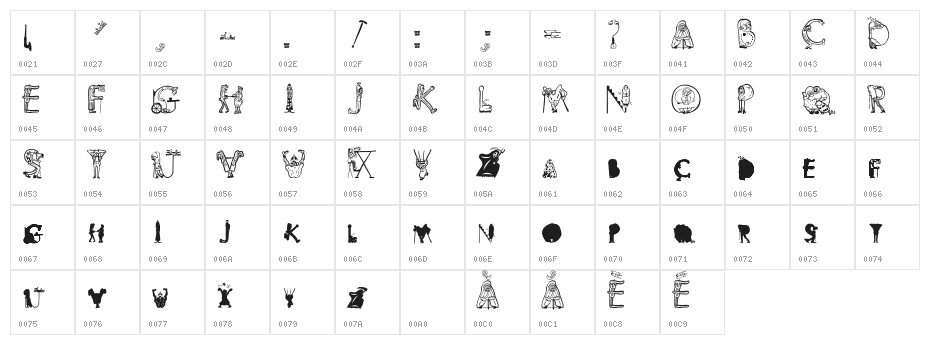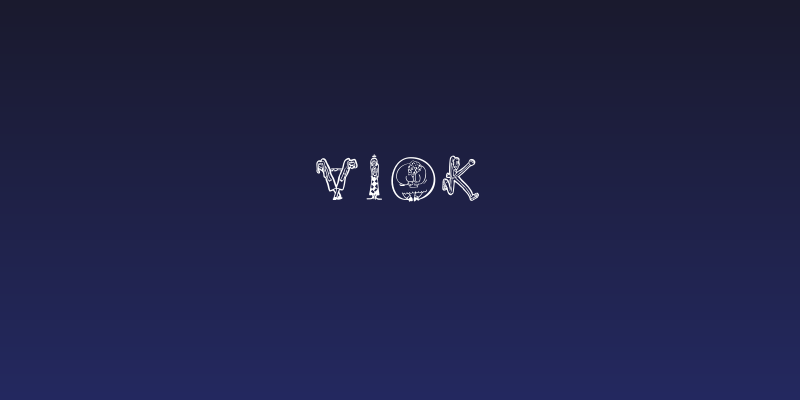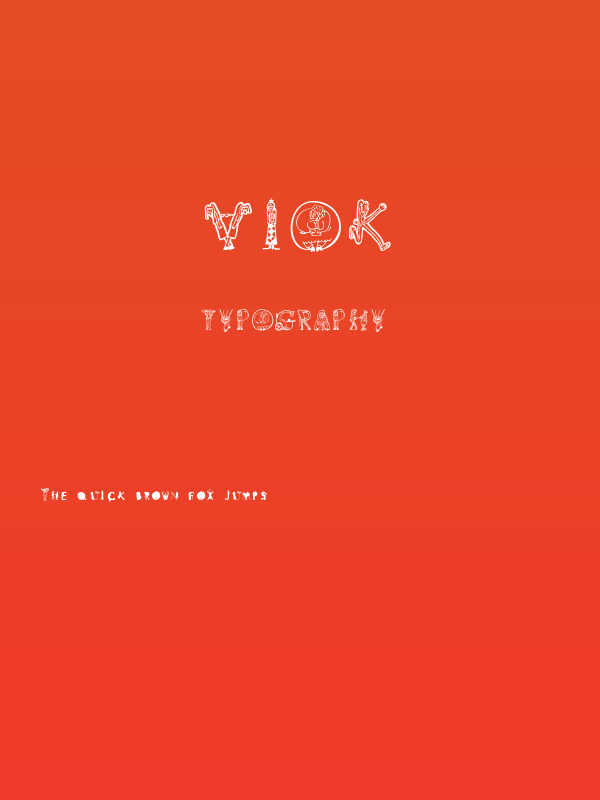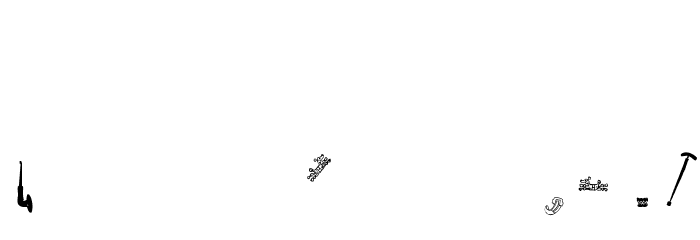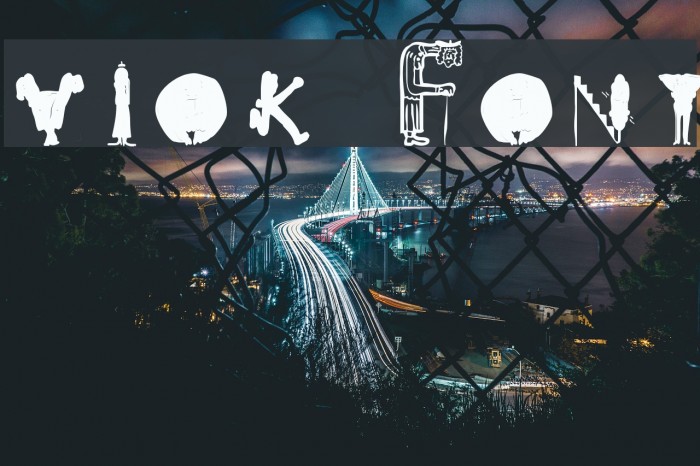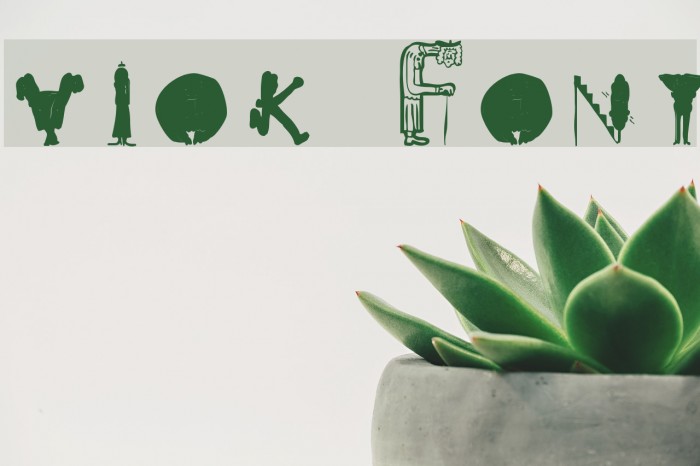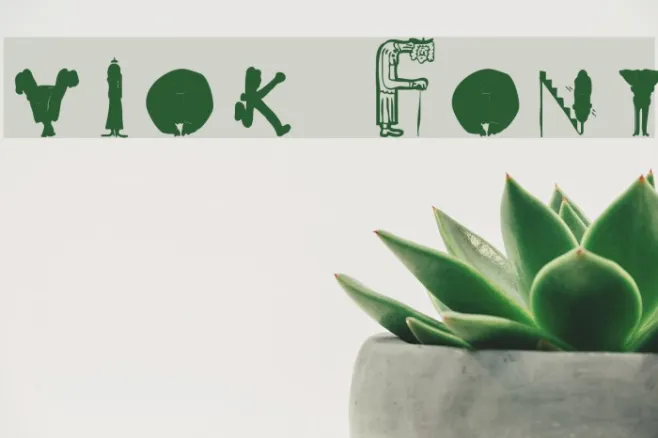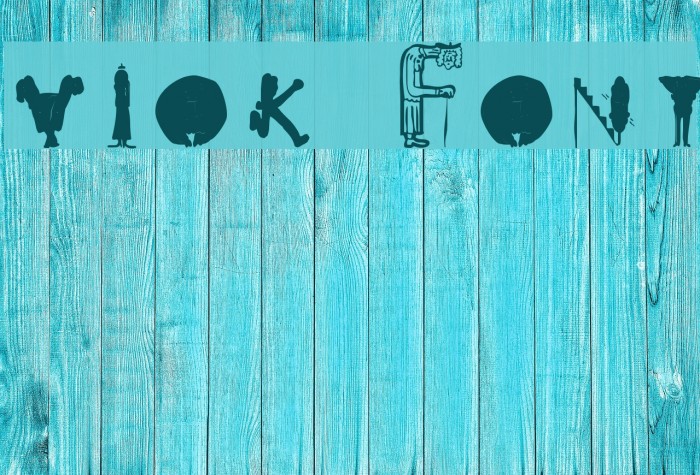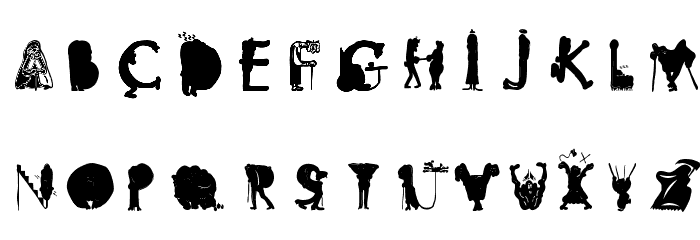
viok Font
This font is a highly decorative and playful typeface that incorporates whimsical illustrations into each letterform. Each character is uniquely designed with intricate details, often featuring cartoon-like figures or objects that form the shape of the letter. The uppercase and lowercase letters maintain a consistent theme, with each letter being a creative representation of its standard form. The font is bold and eye-catching, making it suitable for projects that require a fun and engaging visual element. The characters are tightly spaced, adding to the compact and busy appearance of the text. This font is not suitable for body text due to its complex design but excels in creating standout headlines or artistic logos.
| Proposed Projects | Ideal for children's book covers, playful posters, creative logos, and artistic headlines. |